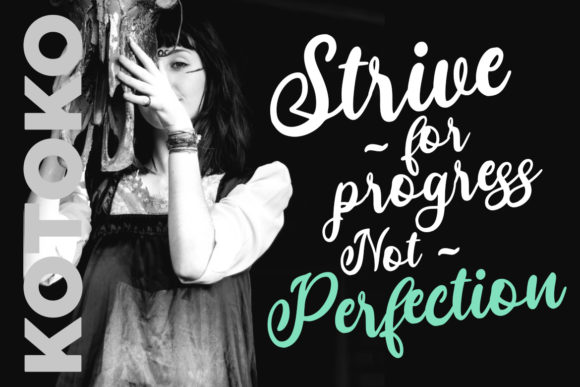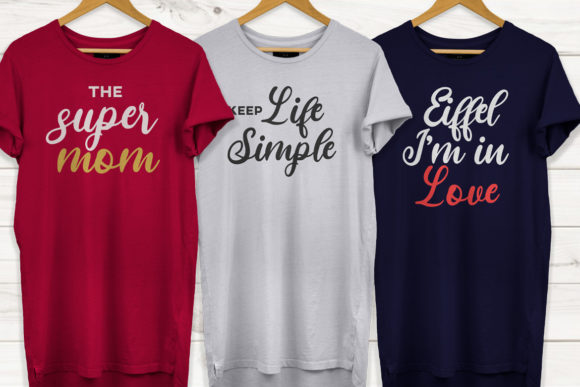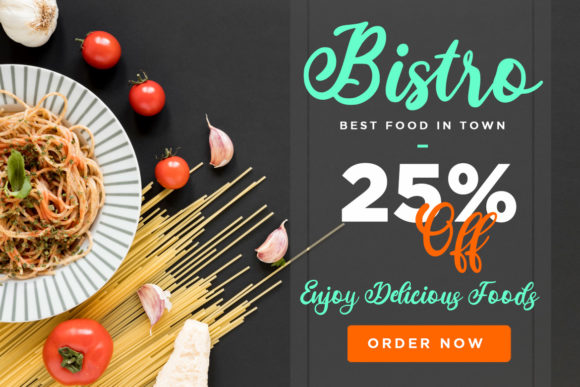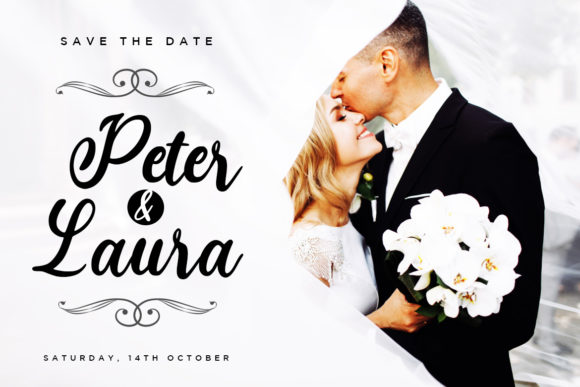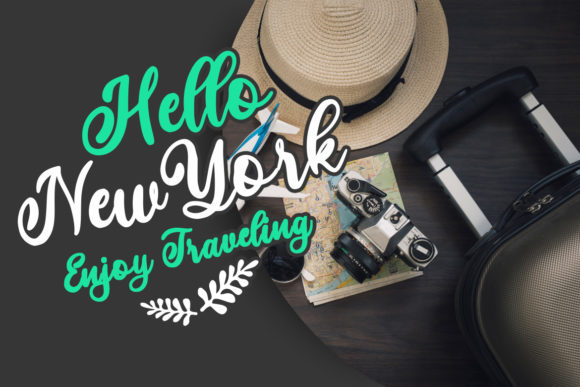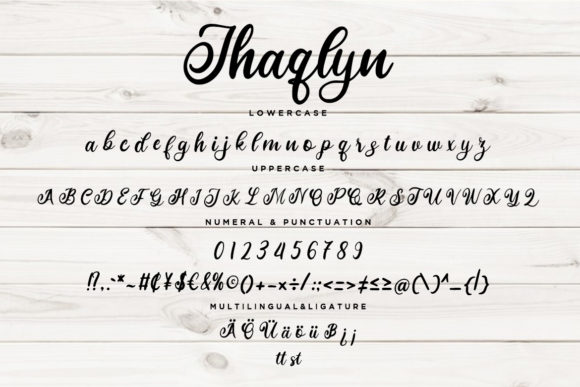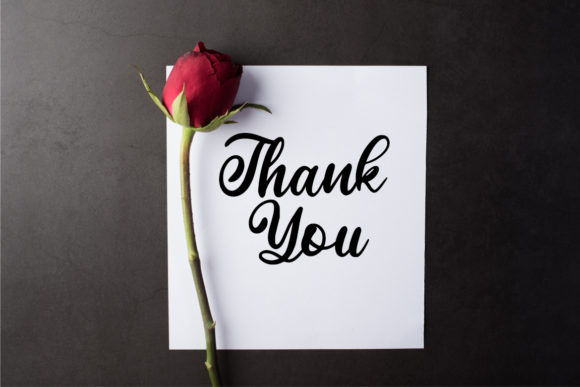
HomeScript FontsJhaqlyn Font Script Fonts Jhaqlyn Font FacebookXPinterestWhatsApp Jhaqlyn Font Poster 2 Jhaqlyn Font Poster 3 Jhaqlyn Font Poster 4 Jhaqlyn Font Poster 5 Jhaqlyn Font Poster 6 Jhaqlyn Font Poster 7 Jhaqlyn Font Poster 8 About Jhaqlyn Font Jhaqlyn is a fun and cool handwritten font with a fancy look. Use it to add an elegant feel to any creative idea. DOWNLOAD ON CREATIVE FABRICAThis font is sold and delivered by Creative Fabrica. Font Canyon may earn a commission if you buy through this link. People also explored Geffroge Authentic Font Kiss and Tell The Geantdum Font Love Nelvin Font Arduin Font Hardwyn Font Goodnight Font Mati Novelty Font 260 0 TagsJhaqlyn Font Previous articleKarllistic Script FontNext articleKalyna Font LEAVE A REPLY Cancel reply Comment: Please enter your comment! Name:* Please enter your name here Email:* You have entered an incorrect email address! Please enter your email address here Website: Save my name, email, and website in this browser for the next time I comment. Personal Use Free New Normal Personal Use Free Read more about this font Comic Caps Personal Use Free Read more about this font Vincent Familiante Personal Use Free Read more about this font Beattingvile Personal Use Free Read more about this font BLOG Fonts That Capture the Spirit of New York City New York City is more than just a place—it’s an experience, a rhythm, a visual language... Best Fonts for T-Shirt Design – Top 2025 Picks Elegant Wedding Invitation Fonts – Handwritten & Script Fonts How to Install and Use Fonts on Windows, macOS, and Web Projects